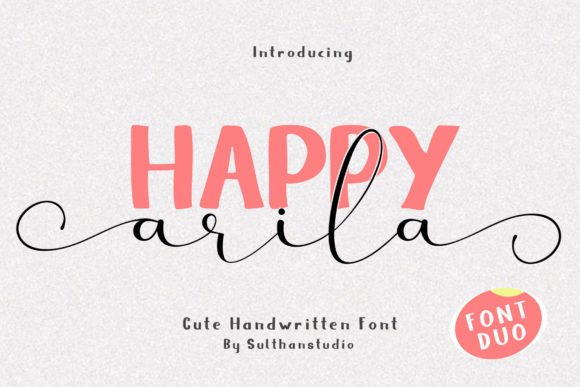
Behold, the enchanting Happy Arila Duo Font, a symphony of elegance and charm orchestrated by Sulthan Studio. This captivating script font duo exudes a delicate and playful spirit, inviting you to craft an array of captivating designs. Whether you're an artist, a designer, or simply a lover of unique fonts, Happy Arila Duo is destined to ignite your creative spark.
Immerse yourself in the whimsical world of Happy Arila, where letters dance with a graceful fluidity. Its elegant curves and playful strokes bestow a touch of magic upon your designs, transforming them into enchanting works of art. Embrace the allure of Happy Arila and watch as your creations blossom with a captivating charm that captivates the hearts of your audience.
With Happy Arila Duo, the possibilities are as boundless as your imagination. Craft heartfelt invitations that evoke a sense of joy and celebration. Create logos that radiate a playful charm that draws customers in like moths to a flame. Design social media graphics that pop off the screen with an irresistible allure. Happy Arila Duo is your trusty companion in creating designs that resonate with your audience on a profound level.
Unlock the creative potential within your designs with Happy Arila Duo. Allow your words to flow with an effortless grace, as if penned by the hand of a master calligrapher. Embrace the beauty of asymmetry and let your designs dance with a playful rhythm. With Happy Arila Duo, you'll discover a world where creativity knows no bounds.